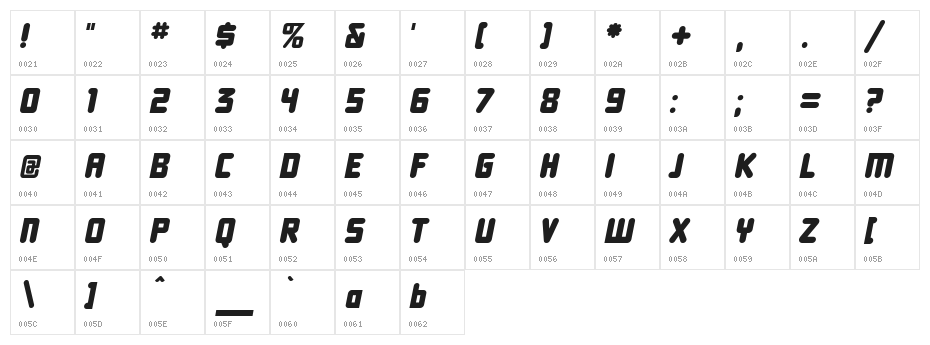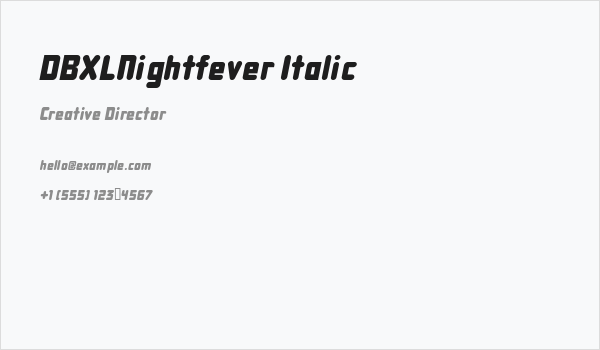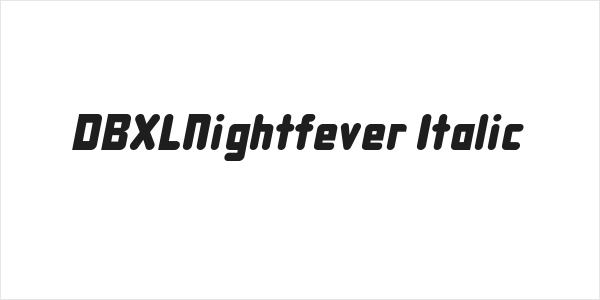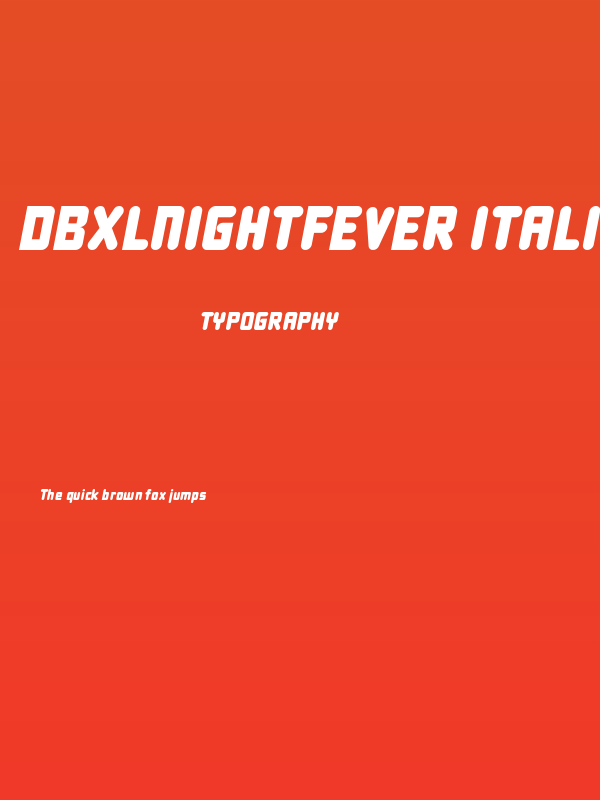
DBXLNightfever Italic Font
DBXLNightfever Italic Description
This font features a bold, italicized style with a modern and dynamic appearance. The characters are slightly slanted, giving a sense of movement and energy. The strokes are thick and consistent, providing a strong visual impact. The overall design is sleek and contemporary, making it suitable for projects that require a bold statement. The characters are well-spaced, ensuring readability while maintaining a compact look. This font is ideal for use in headlines, posters, and branding materials where a strong, modern aesthetic is desired.
| Proposed Projects | Ideal for headlines, posters, branding, and any project needing a bold, modern look. |